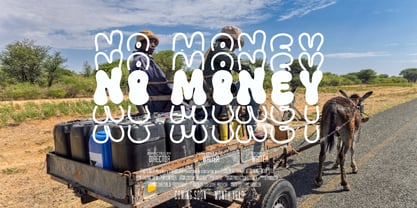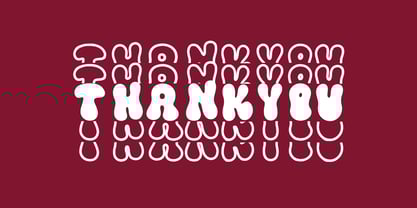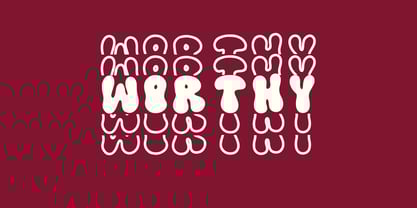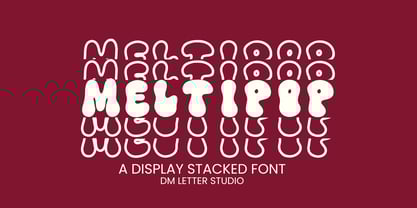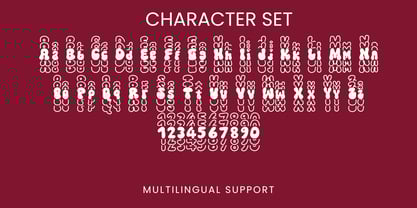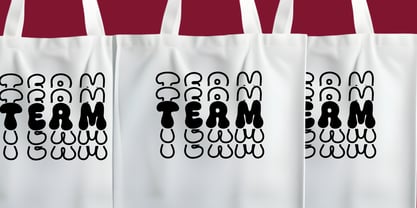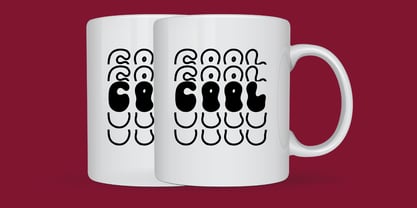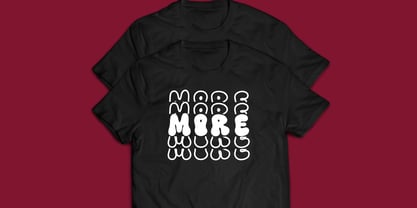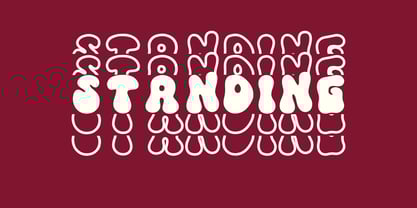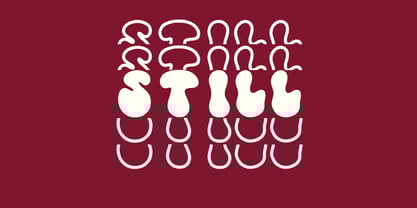
Meltipop Stacked
The Meltipop Stacked Font Family was designed by Dimas Prasetyo and published by DM Studio. Meltipop Stacked contains 1 styles.
Meet Meltipop Stacked Font turns bubbly, retro shapes into bold vertical badges. Letters feel round and friendly, yet they land with punch. Because each line stacks cleanly, short words, names, and dates fit tight spaces without losing charm. Use it for stickers, shirts, thumbnails, packaging, and kids’ merch. Moreover, layered color and soft shadows make quick mockups look polished in minutes. Where Meltipop Stacked Font shines Set upbeat phrases like “Good Vibes,” “Sweet Club,” or a first name. Then add outlines, gel highlights, or a sticker border for instant depth. Since spacing is tuned for headlines, layouts come together fast. As a result, you can ship full bundles for printables, POD, and reels with less tweaking. Plus, the compact rhythm keeps titles readable on tags and small thumbnails. Fast setup, bright results Install the files and start designing right away in Canva, Photoshop, and Illustrator. Clean paths keep DTG prints, sublimation, and vinyl cuts crisp at any size. Therefore, mugs, tote bags, jars, and boxes carry the same cheerful look. Next, try color stories like coral–mint, lemon–navy, or lilac–cream to lock a friendly brand feel. Finally, save a base template—headline, inner fill, and shadow—so new SKUs roll out quickly. Design tips for stacked bubble type Keep copy short; let Meltipop Stacked Font lead. Use layered fills for a puffy-sticker effect. Add tiny stars, hearts, or smileys around the type for quick sets. Pair with a clean geometric sans for captions and pricing. What you get inside Uppercase, lowercase, numbers, punctuation Multilingual Latin support Smooth outlines tuned for vinyl, DTG, and high-res print Why creators choose Meltipop Stacked Font You want happy nostalgia that reads fast and fits small spaces. This font delivers. It grabs attention in crowded feeds, speeds production, and scales from mini stickers to tall posters. Consequently, one typeface can anchor your kids, party, summer, and lifestyle launches with a consistent, sellable voice.